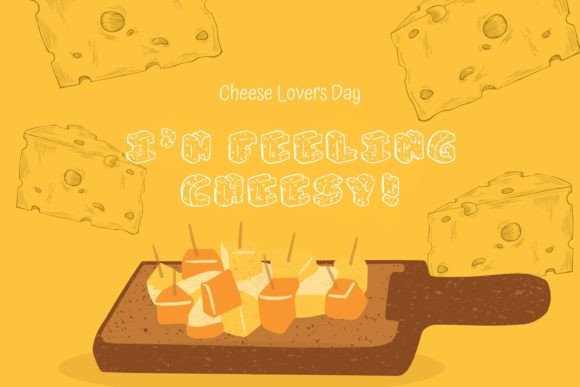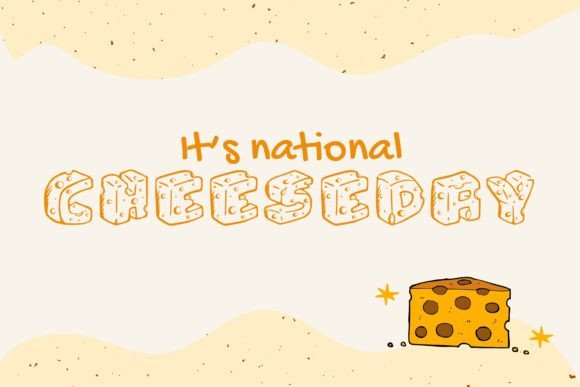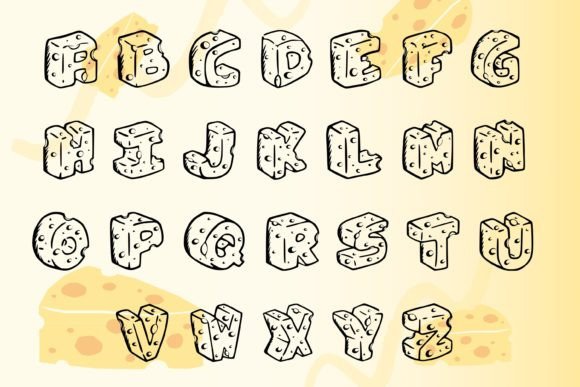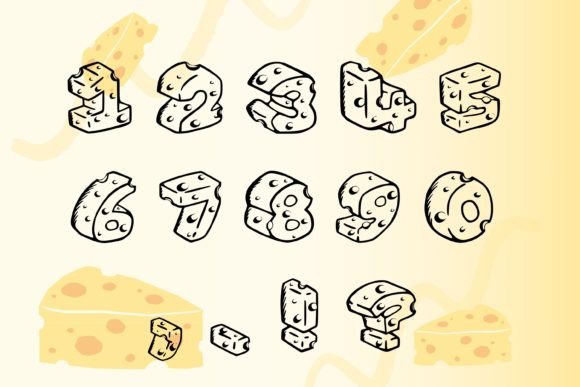
Introduction to Holly Cheese Font
Holly Cheese is a fun, hot, and delicious display font.
Add it to restaurant menus, dining boards, posters, flyers, stickers, or anything that needs a cheezy look .
Key Features of Holly Cheese Font
Why Choose Holly Cheese Font?